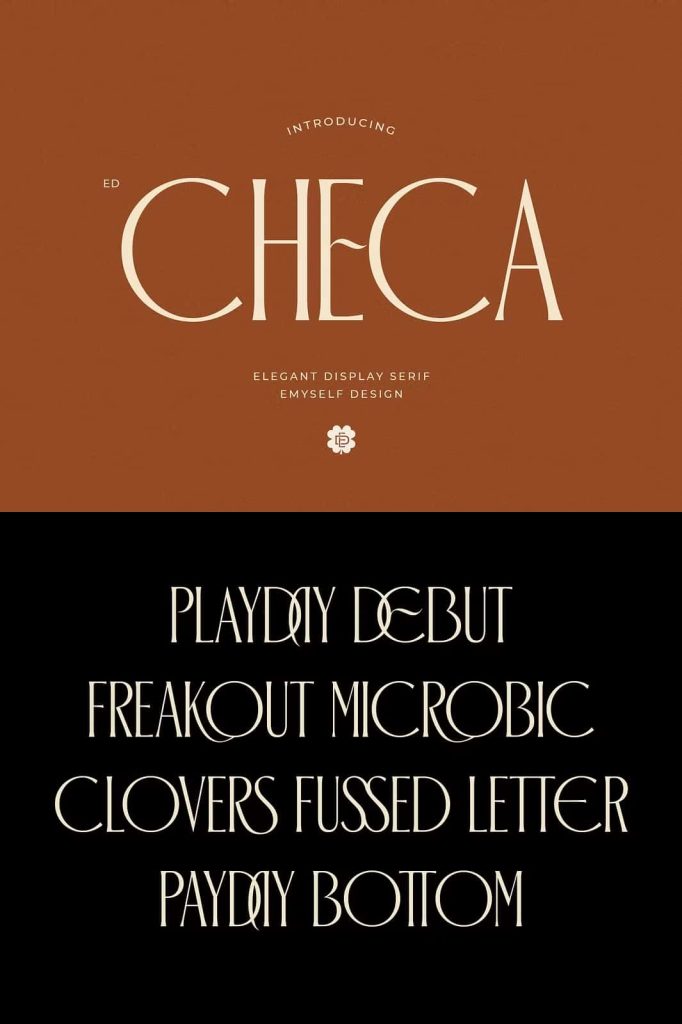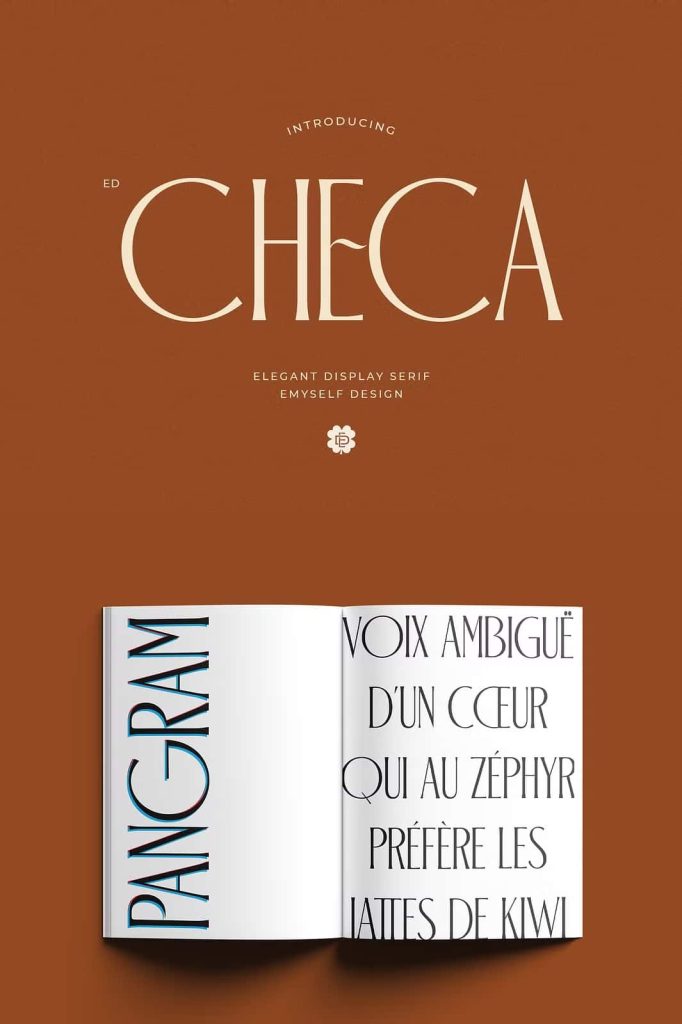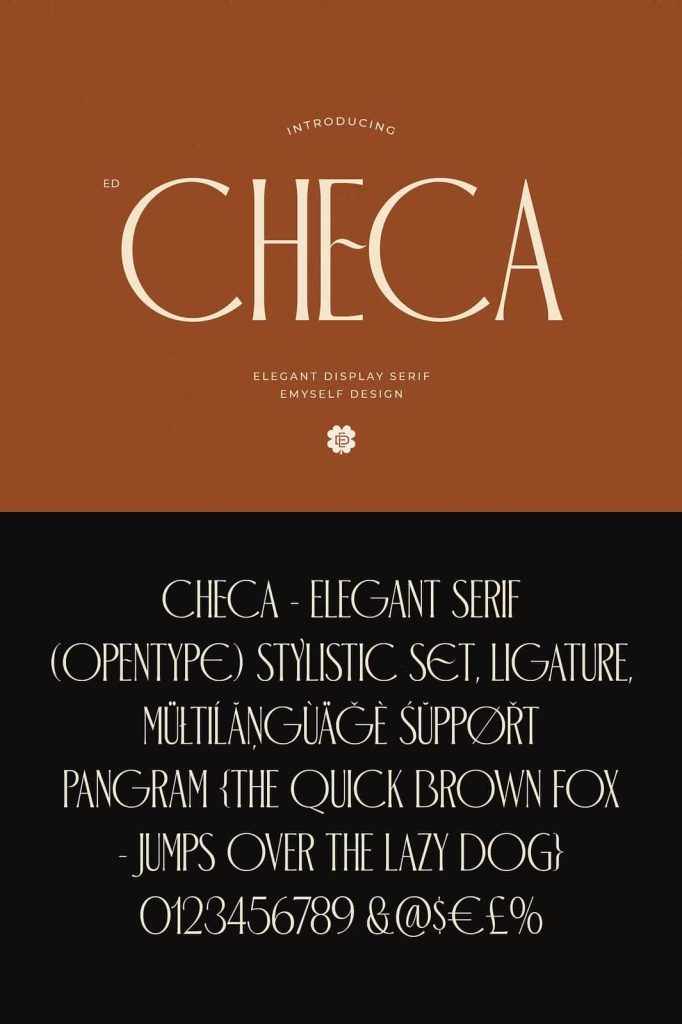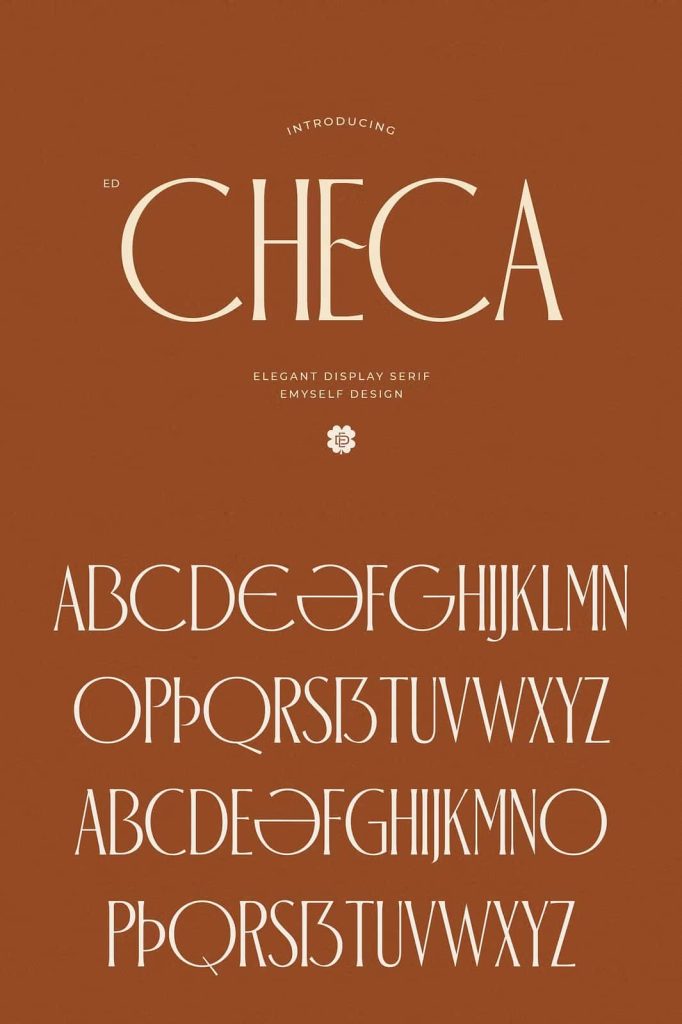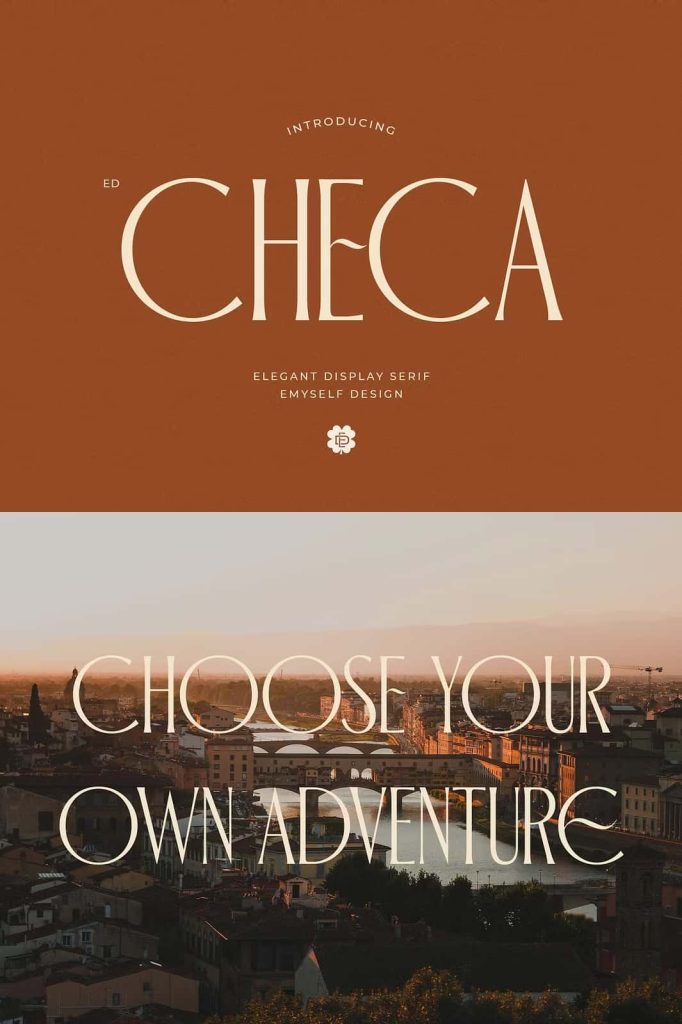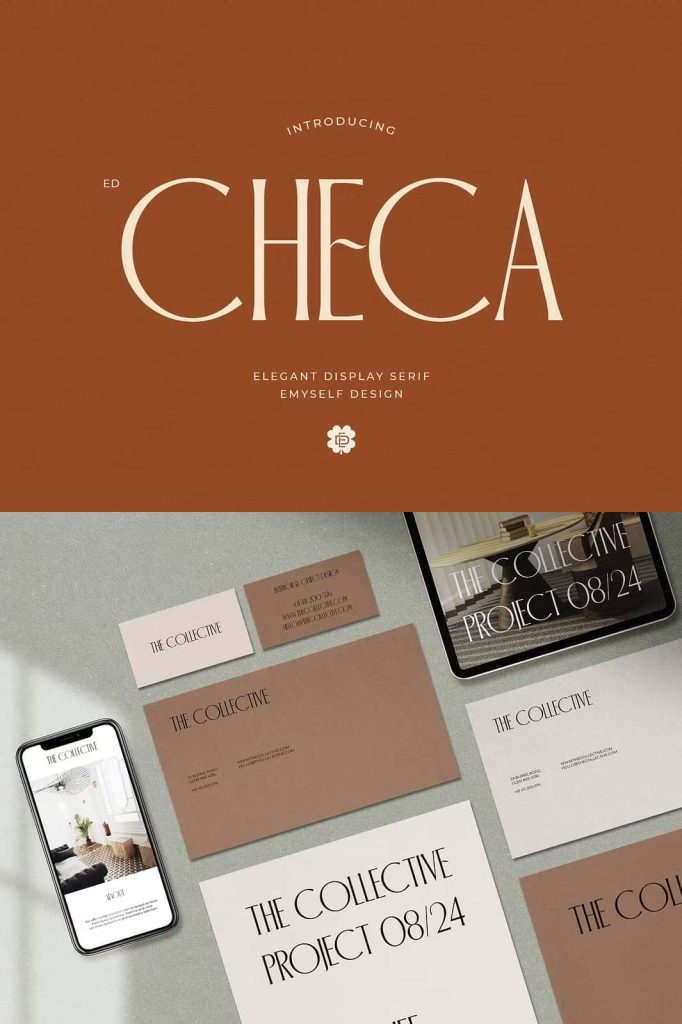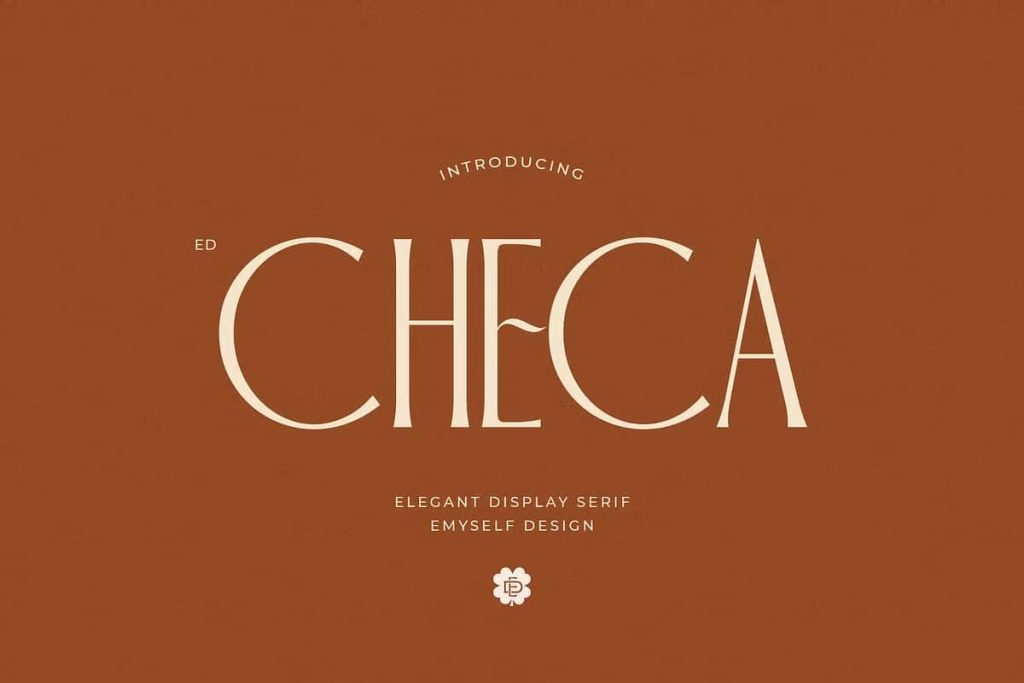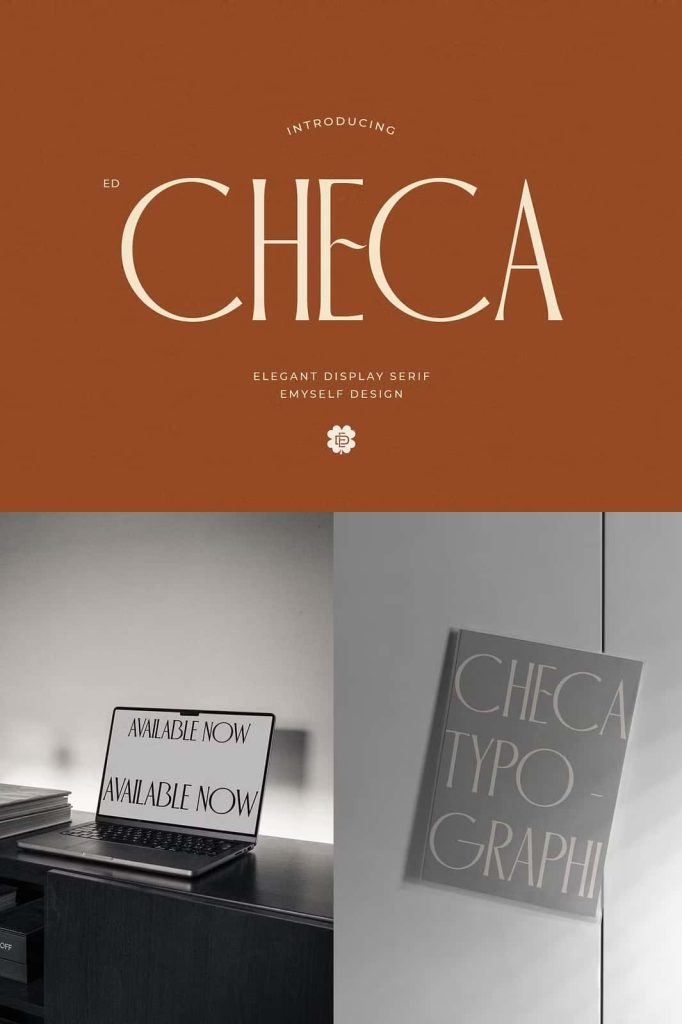
Checa is a serif display font that exudes classic and elegant charm. With OpenType features such as ligatures, stylistic sets, and multilingual support, this font provides great flexibility in various design projects.